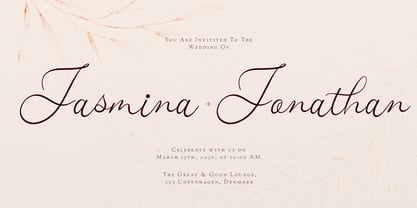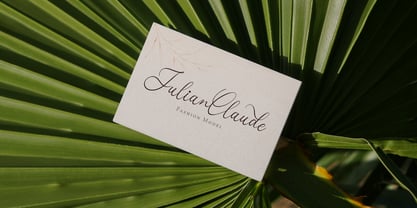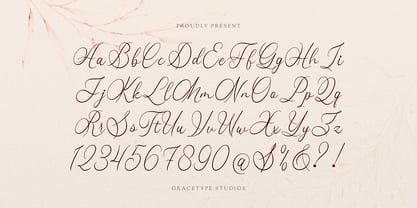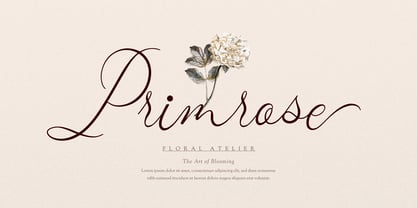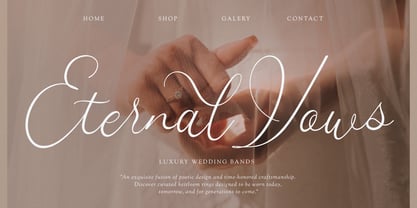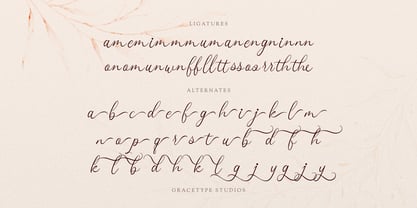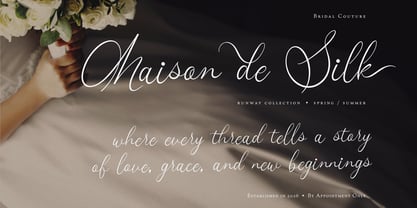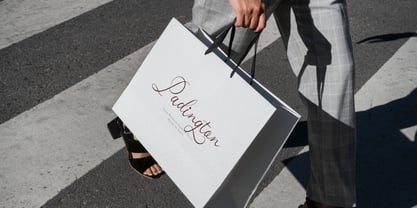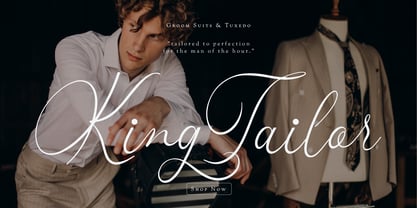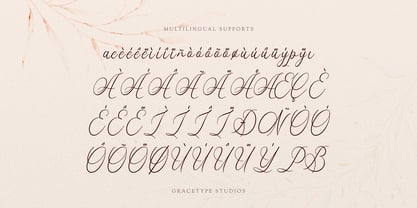
Mafuinka
Mafuinka | Classic Calligraphy, from Gracetypestudio, suitable for any projects such as: logos, branding projects, homeware designs, product packaging, mugs, quotes, posters, shopping bags, t-shirts, book covers, name card, invitation cards, greeting cards, label, photography, watermark, special events, and all your other lovely projects that need a Calligraphy taste.